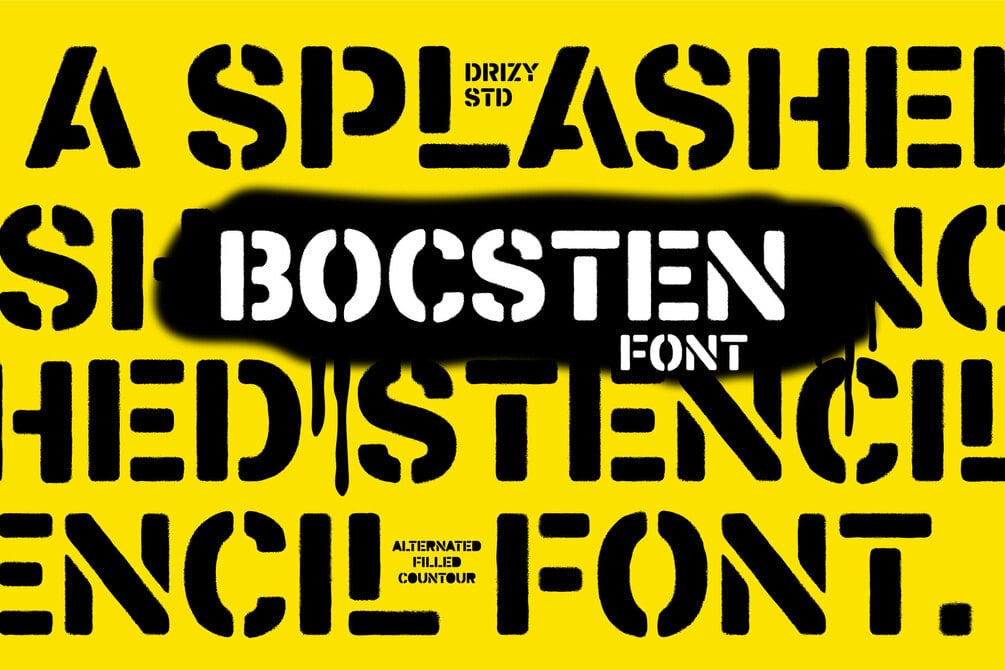
Bocsten – Splashed Stencil Font
Bocsten – Splashed Stencil Font is a raw, high-impact typeface that fuses the untamed spirit of street art with cutting-edge design. Exploding with rebellious attitude, each letter feels like a bold brushstroke caught in motion gritty, expressive, and unapologetically urban. This avant garde stencil font breaks free from traditional rules, offering a chaotic elegance that’s perfect for designs that dare to be different. Bocsten delivers a punch of personality and a street smart aesthetic that commands attention.